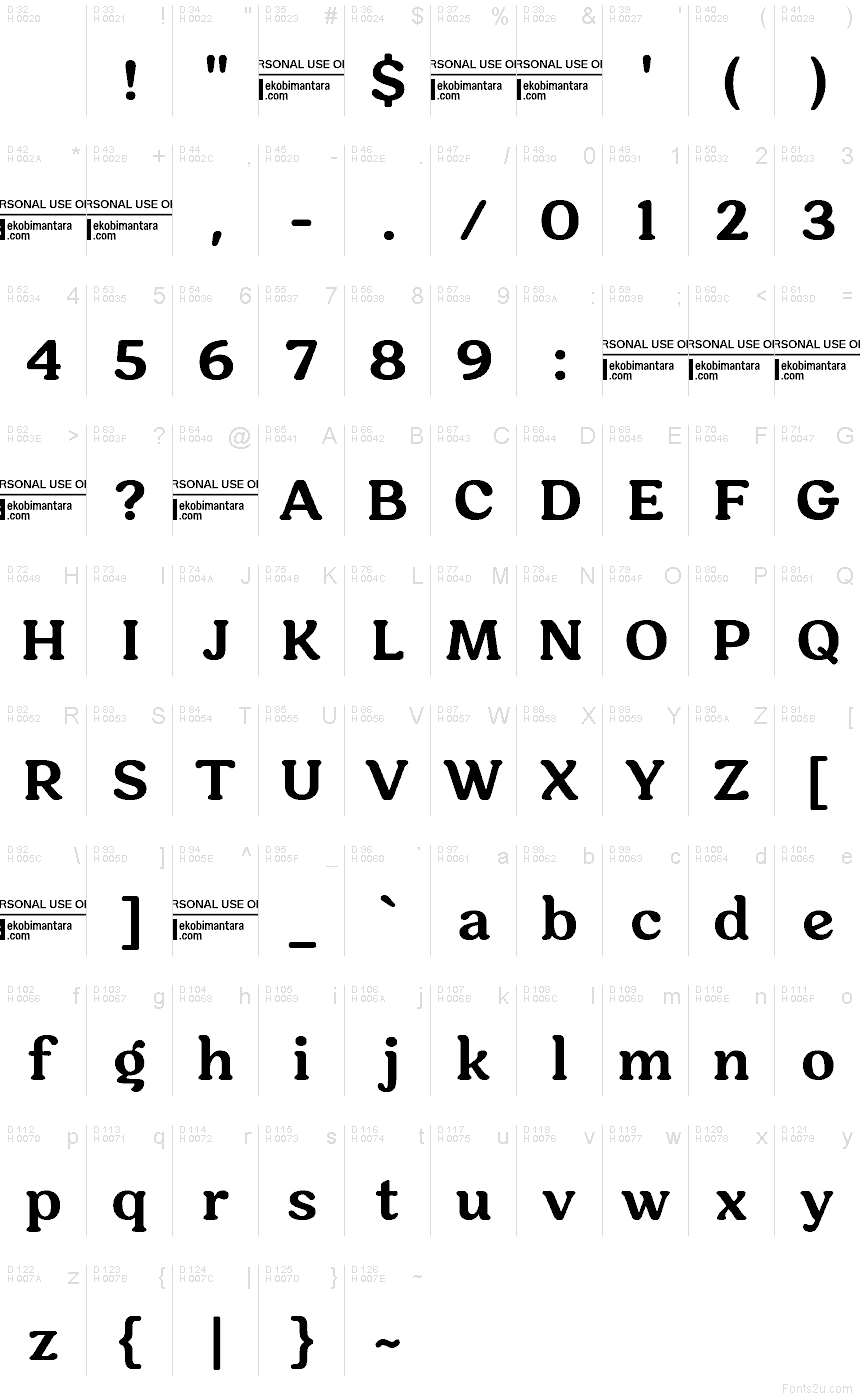
Hornbill Trial Bold
Hornbill Bold font by Eko Bimantara is a free retro display font built for headlines that need warmth with authority. Its defining charm comes from velvety wedge serifs, bulb-like terminals, and generous curves that thicken and taper with a pleasing, inky swing. The sturdy verticals keep it grounded while the rounded counters add softness, giving the Hornbill family a rich, mid-century cadence without feeling kitsch.
Using Hornbill Bold, titles lock up cleanly and read loud at a glance—great for vintage branding, posters, packaging, book covers, menus, and editorial pull quotes. This free font shines on labels and signage where texture and heft matter. Pair it with a crisp geometric sans or a lighter Hornbill weight to let the bold forms take center stage.